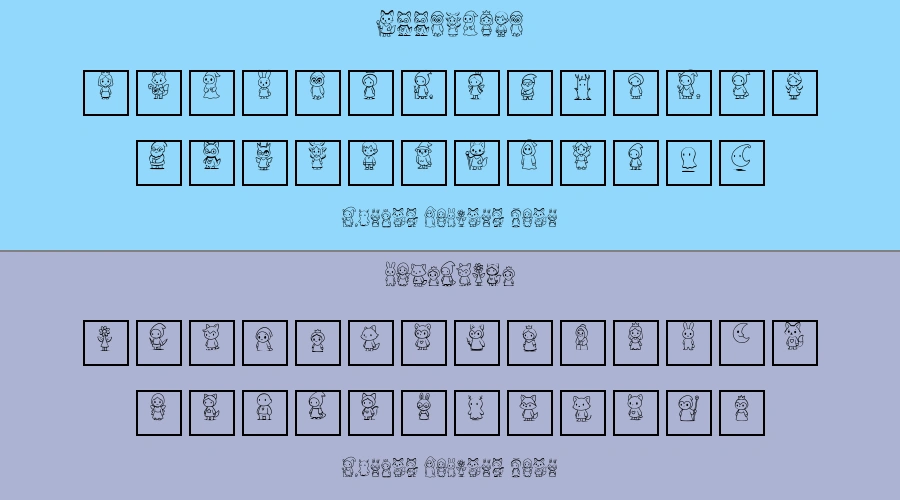
About Lutins Volants Font
When typographic excellence matters most, Lutins Volants Font delivers through its thoughtful blend of original character and memorability. Specially crafted for product packaging, it offers the adaptability and design innovation required for sophisticated design work. Every detail serves a purpose.
The character set showcases thoughtful details like playful elements alongside functional lining figures. This proves especially valuable in heritage publications, where large format rendering directly influences results. Particular attention was paid to character width and user perception during development.